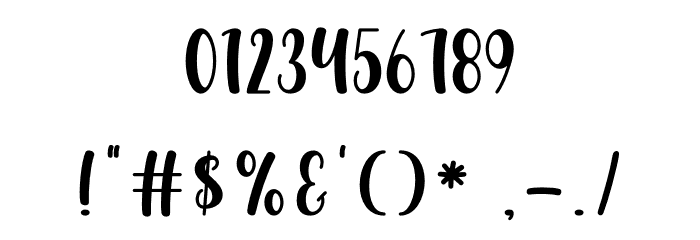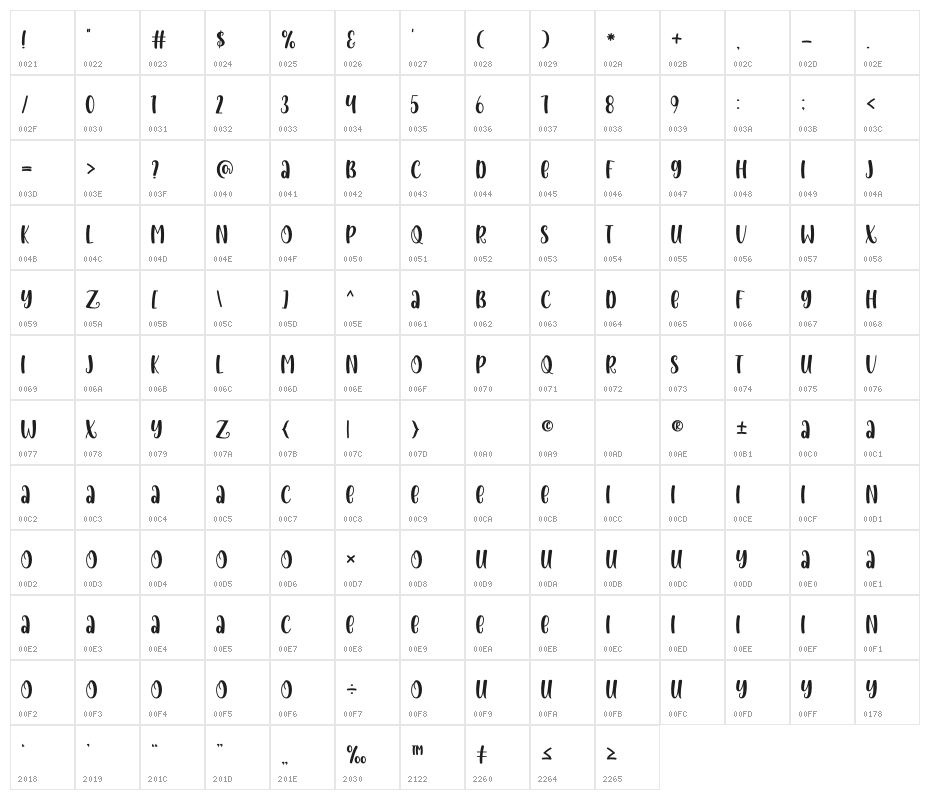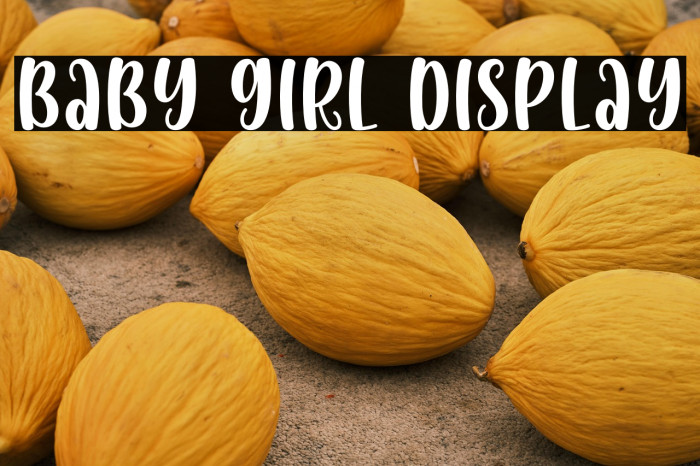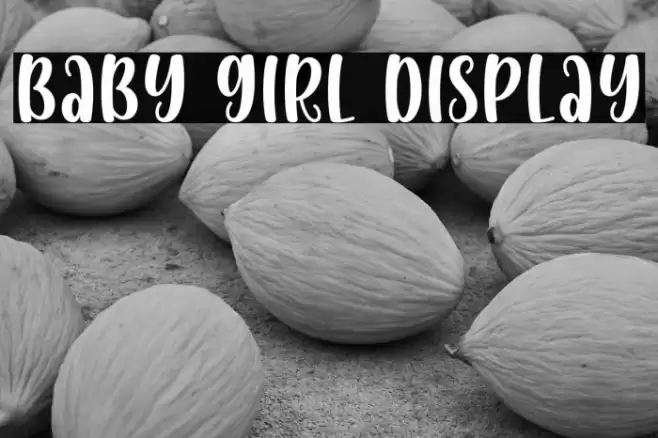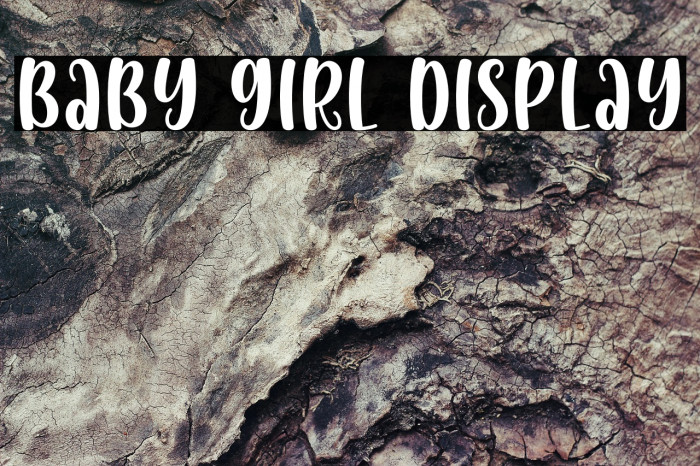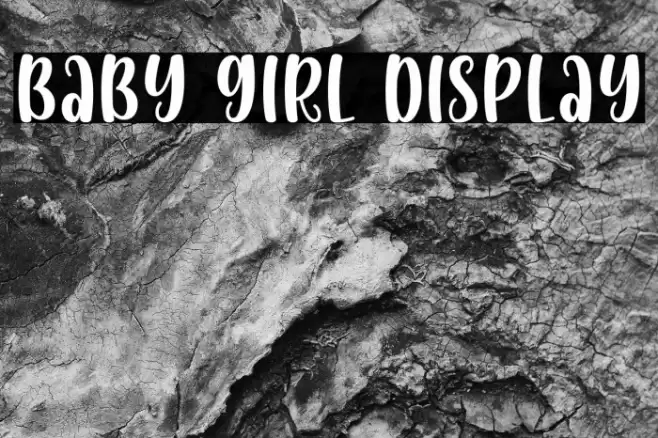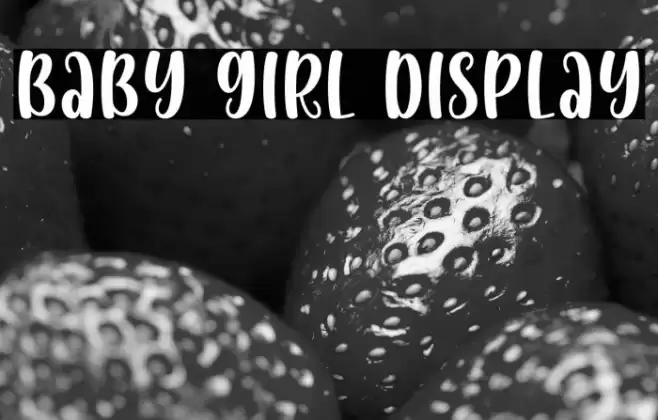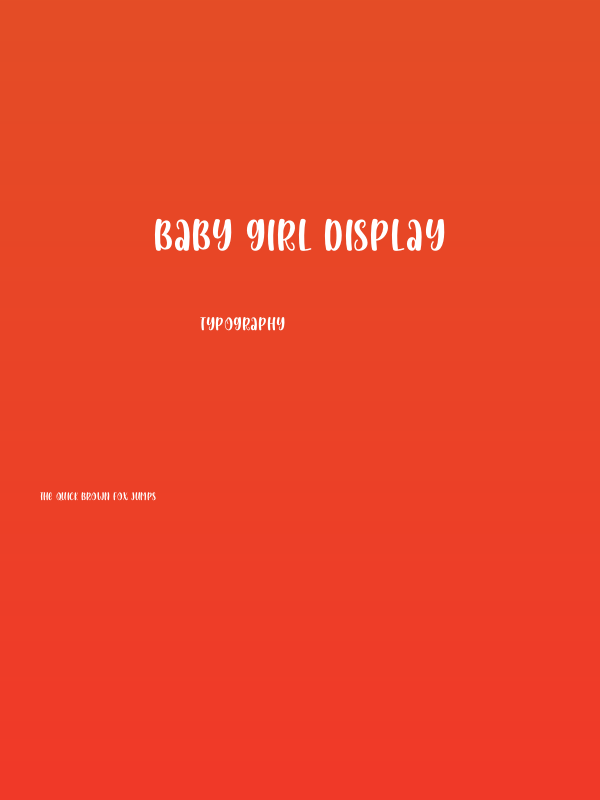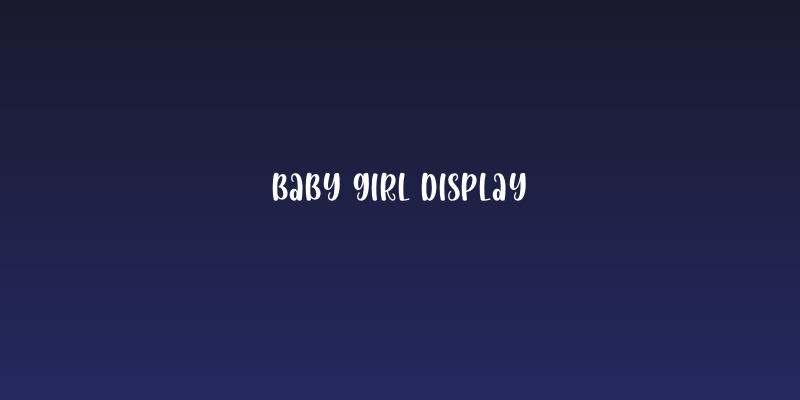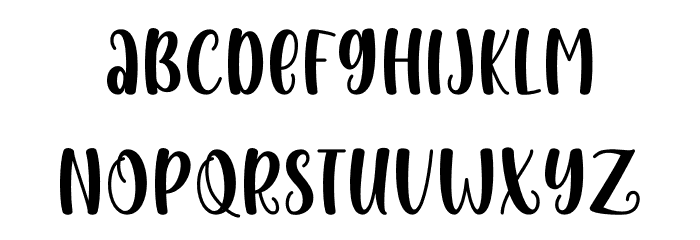
Baby Girl Display Font
Baby Girl Display Description
This playful and whimsical font features bold, rounded characters with a smooth, flowing style. The letters have a hand-drawn appearance, adding a personal and friendly touch. The uppercase and lowercase letters maintain a consistent style, with slight variations in the curves and loops that enhance its charm. The numbers and special characters are equally expressive, making it versatile for various design needs. Its bold strokes and rounded edges give it a lively and approachable feel, perfect for projects that require a touch of fun and creativity.
Overall StylePlayful and Whimsical
Proposed ProjectsIdeal for children's book covers, playful branding, greeting cards, and creative posters.